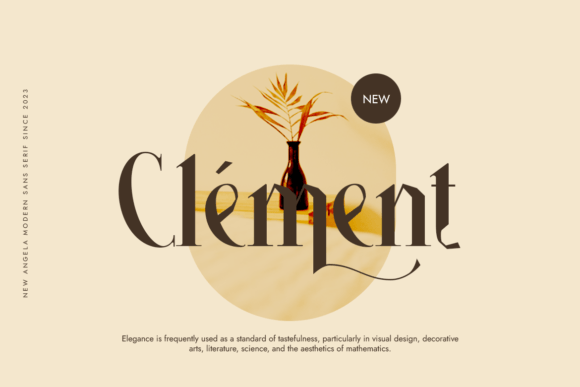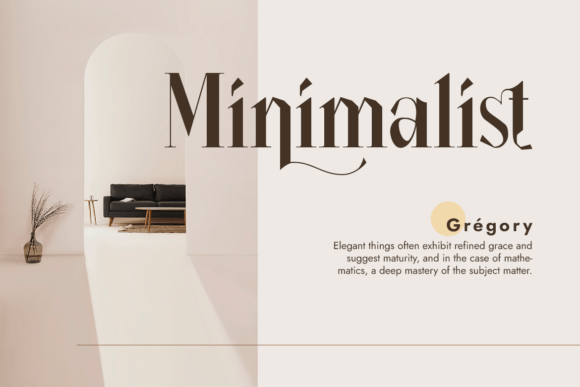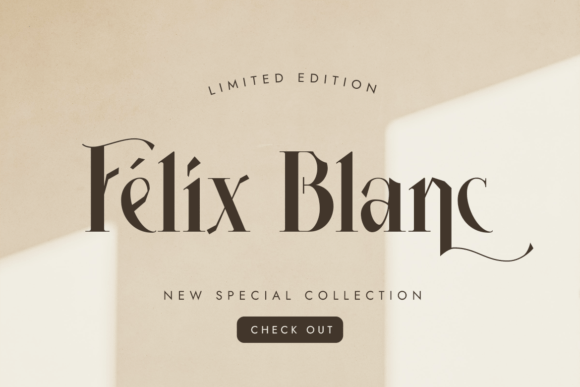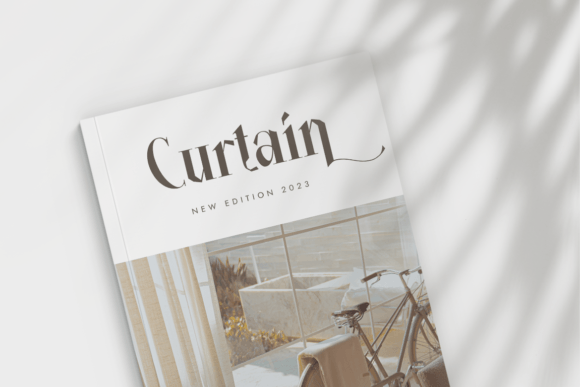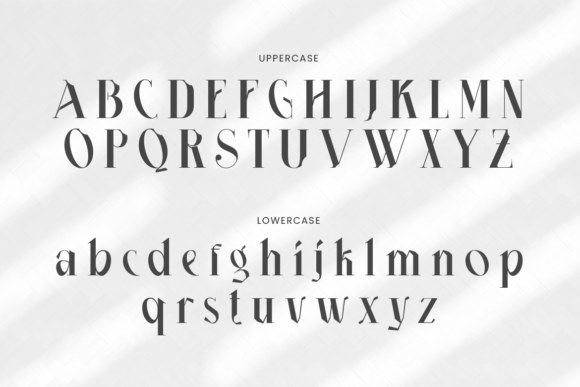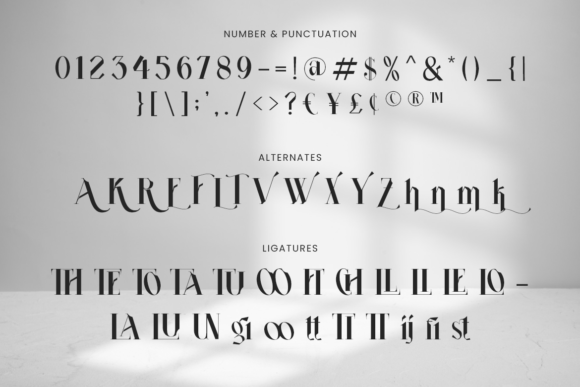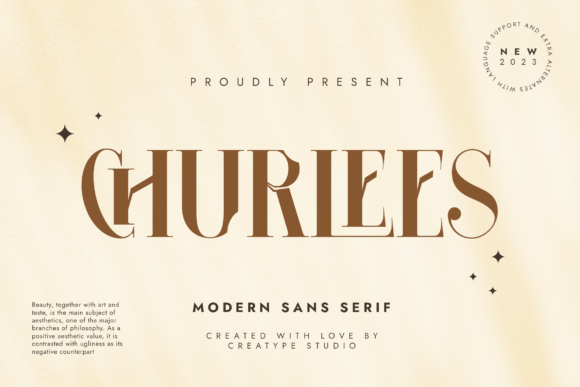
Introducing Churlees Font: The Epitome of Sophistication and Elegance
In the realm of typography, few fonts manage to strike a balance between modernity and timelessness. Churlees Font, however, achieves this feat with remarkable finesse. Its sleek lines and minimalistic design exude sophistication and elegance, making it an ideal choice for designers and crafters seeking to elevate their projects. Whether you’re working on branding, logos, wedding designs, or social media posts, Churlees is the perfect companion to help you create contemporary and eye-catching designs.
Unleashing Creative Potential with Churlees
Churlees Font is more than just a typeface; it’s a versatile tool designed to meet the diverse needs of creative professionals. This font is perfect for a wide array of applications, including:
- Branding Projects: Establish your brand’s identity with a font that communicates sophistication and elegance.
- Logos: Create memorable and impactful logos that stand out in the crowd.
- Wedding Designs: Add a touch of class and romance to your wedding invitations, decorations, and more.
- Social Media Posts: Elevate your social media content with a font that grabs attention and conveys a sense of style.
- Advertisements: Make your ads more compelling and engaging with a sophisticated typeface.
- Product Packaging and Designs: Enhance your product’s visual appeal and make it more market-ready.
- Labels and Photography: Use Churlees to add a professional touch to your labels and photographs.
- Watermarks: Protect your work with an elegant watermark that doesn’t detract from your content.
- Invitations and Stationery: Create beautiful, high-end invitations and stationery that leave a lasting impression.
The Advantage of PUA Encoding
One of the standout features of Churlees Font is its PUA (Private Use Area) encoding. This means that accessing all the glyphs and ligatures is incredibly straightforward. PUA encoding allows users to:
- Easily Access Alternate Characters: Switch between different glyphs and ligatures to add variety and creativity to your designs.
- Streamline the Design Process: With all the glyphs and ligatures at your fingertips, you can work more efficiently, saving time and effort.
- Enhance Typography: Take full advantage of Churlees’ design by incorporating a range of typographic elements that add depth and interest to your work.
Why Choose Churlees Font?
In a market flooded with countless fonts, Churlees stands out for several reasons:
- Unique Aesthetic: Its sleek, minimalistic design offers a fresh alternative to more traditional typefaces.
- Versatility: Suitable for a broad spectrum of projects, from digital content to print materials.
- Ease of Use: PUA encoding makes it easy to access and use the font’s full range of features.
- Sophistication: Adds an air of elegance and professionalism to any project.
Churlees Font is a remarkable addition to any designer’s toolkit. Its sleek lines, minimalistic design, and PUA encoding make it an excellent choice for those looking to infuse their projects with sophistication and elegance. Whether you’re a seasoned professional or a hobbyist, Churlees offers the versatility and ease of use to help you achieve your creative goals. Elevate your designs with Churlees Font and experience the difference it can make in your work.